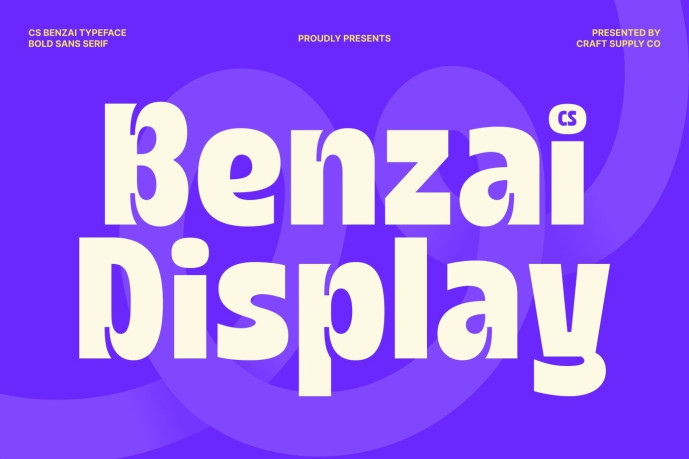
Benzai – Inktrap Font
Designer: Craft Supply Co.
CS Benzai – Bold Sans Serif Font: Where Modern Strength Meets Playful Inktrap Character Strong Modern Forms with Expressive Personality This is a bold sans serif display font designed to make a lasting impression through its strong, confident letterforms and contemporary aesthetic. Its clean structure and bold proportions create excellent visibility and impact, making it ideal for display applications that demand attention. The font balances modern simplicity with expressive details, resulting in a style that feels both professional and full of character.
Playful Inktrap Details with Unique Charm This font transforms traditional typographic features into eye-catching design elements. These carefully crafted cuts and refinements add personality, visual interest, and subtle complexity to each letterform. The playful inktraps introduce a fresh and dynamic character while maintaining the font’s bold readability and polished appearance.
Contemporary Design with Creative Energy This font delivers a typographic identity that feels energetic, memorable, and highly versatile. Its strong forms combined with unique details create a perfect balance between functionality and creativity, making it suitable for projects that seek both clarity and individuality.
Perfect for Displays, Posters, Headlines, and Titles Perfect for display typography, posters, branding projects, titles, advertising campaigns, packaging, social media graphics, merchandise, event promotions, and creative visual identities. Its distinctive inktrap forms make it ideal for logos, headlines, and promotional materials that seek to communicate confidence, originality, and modern appeal.